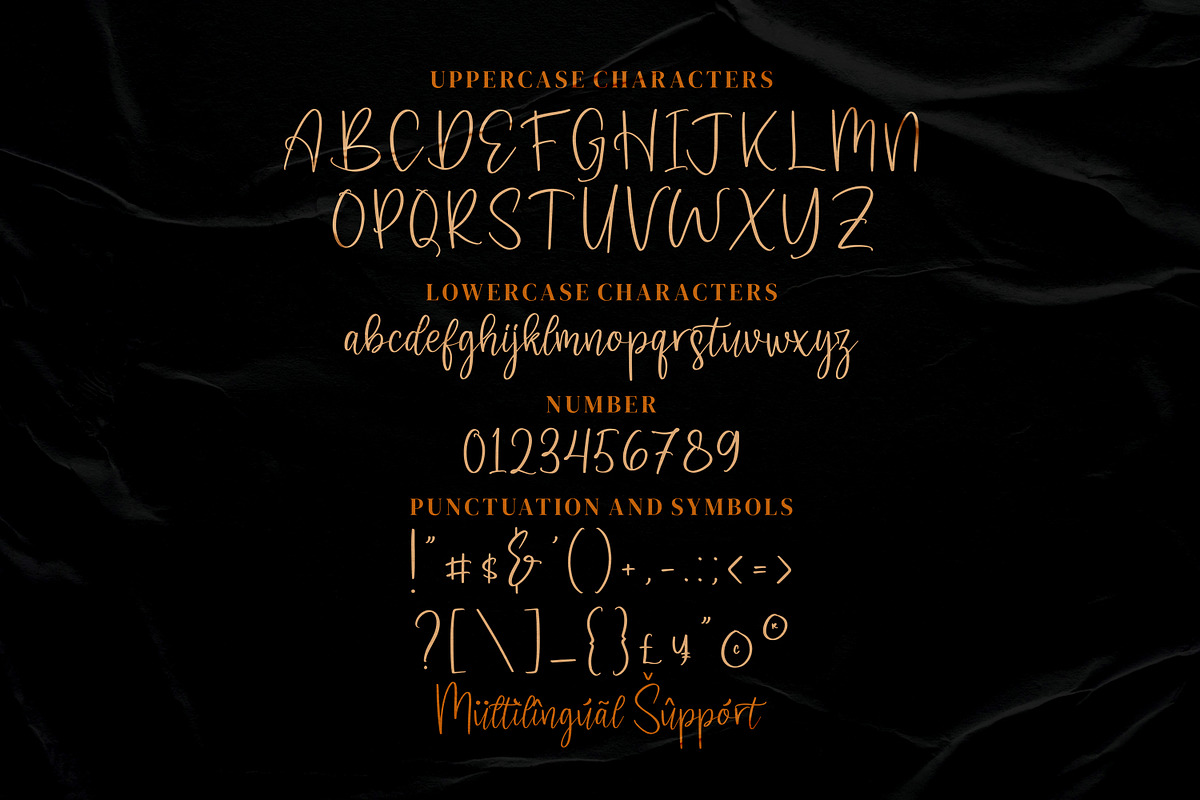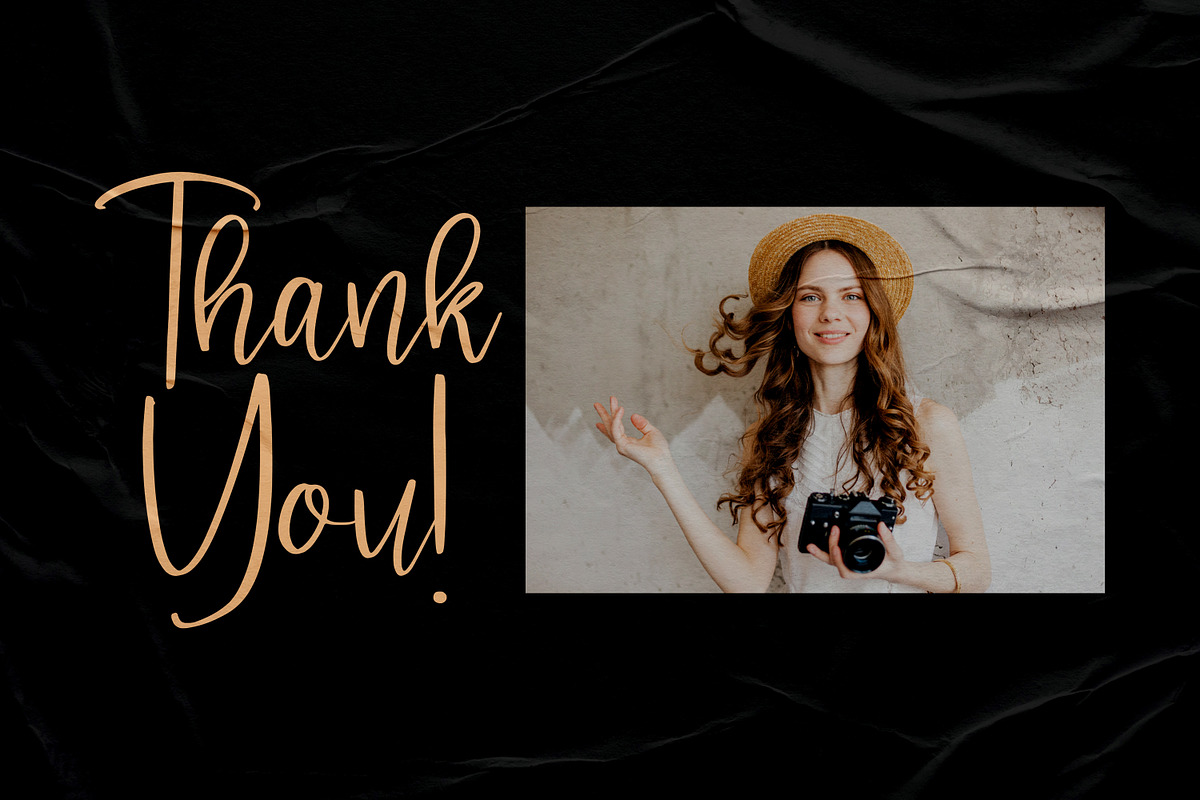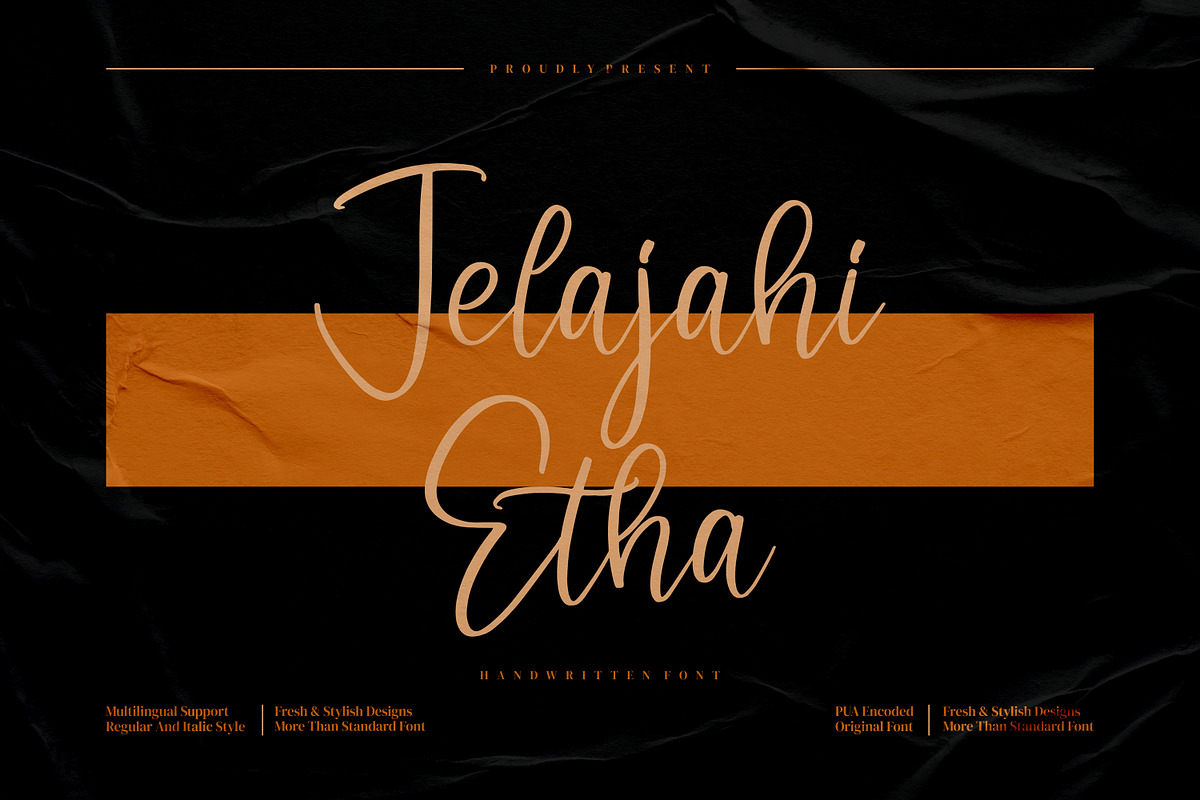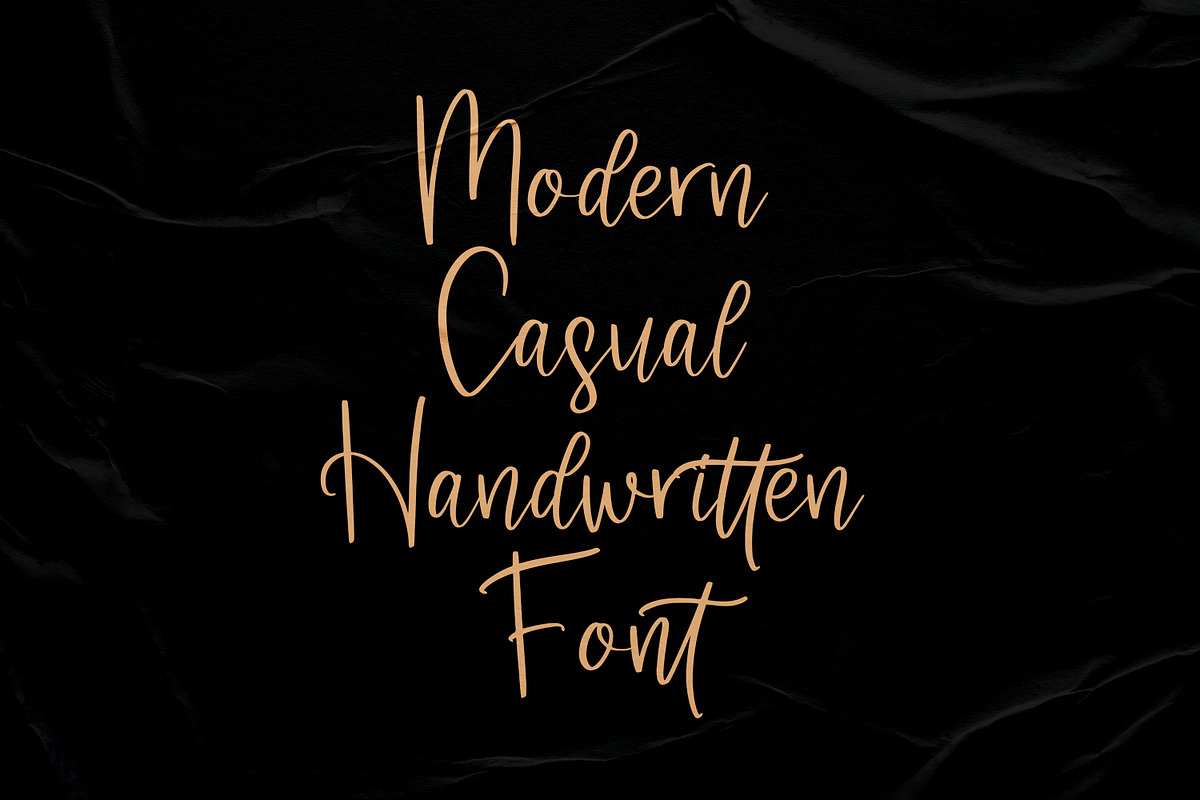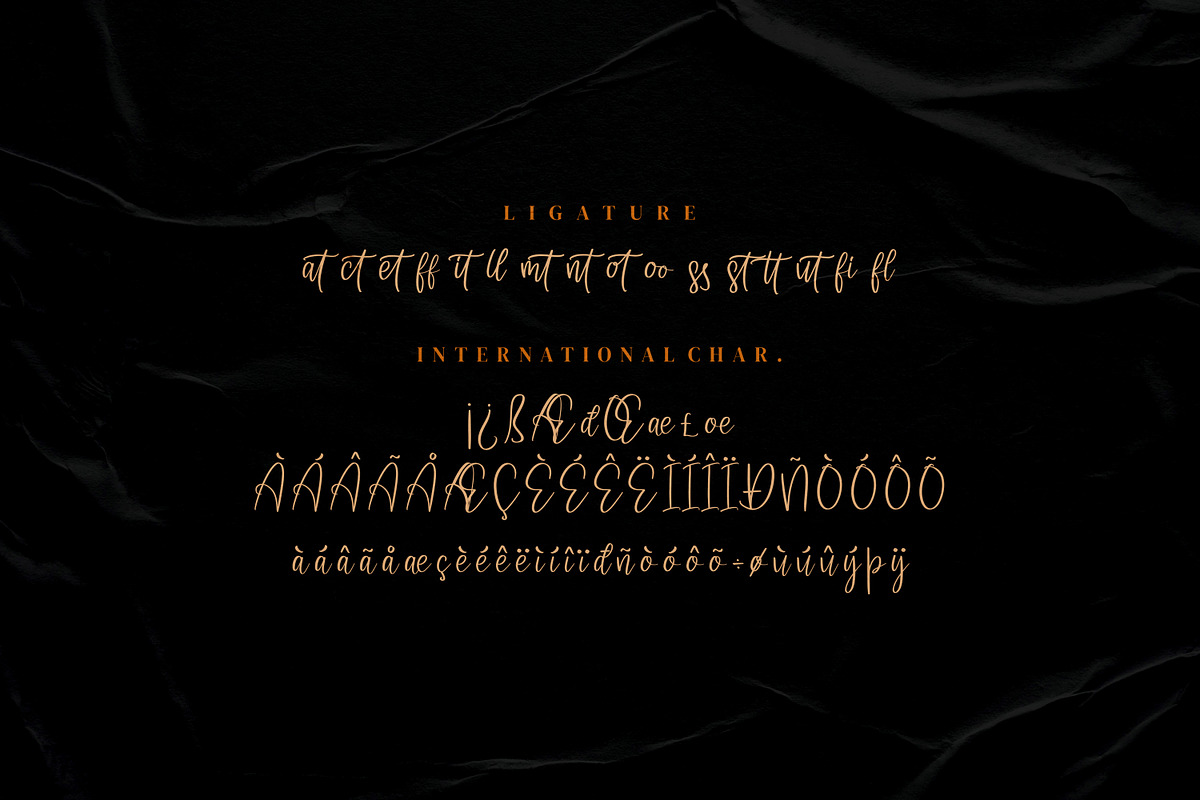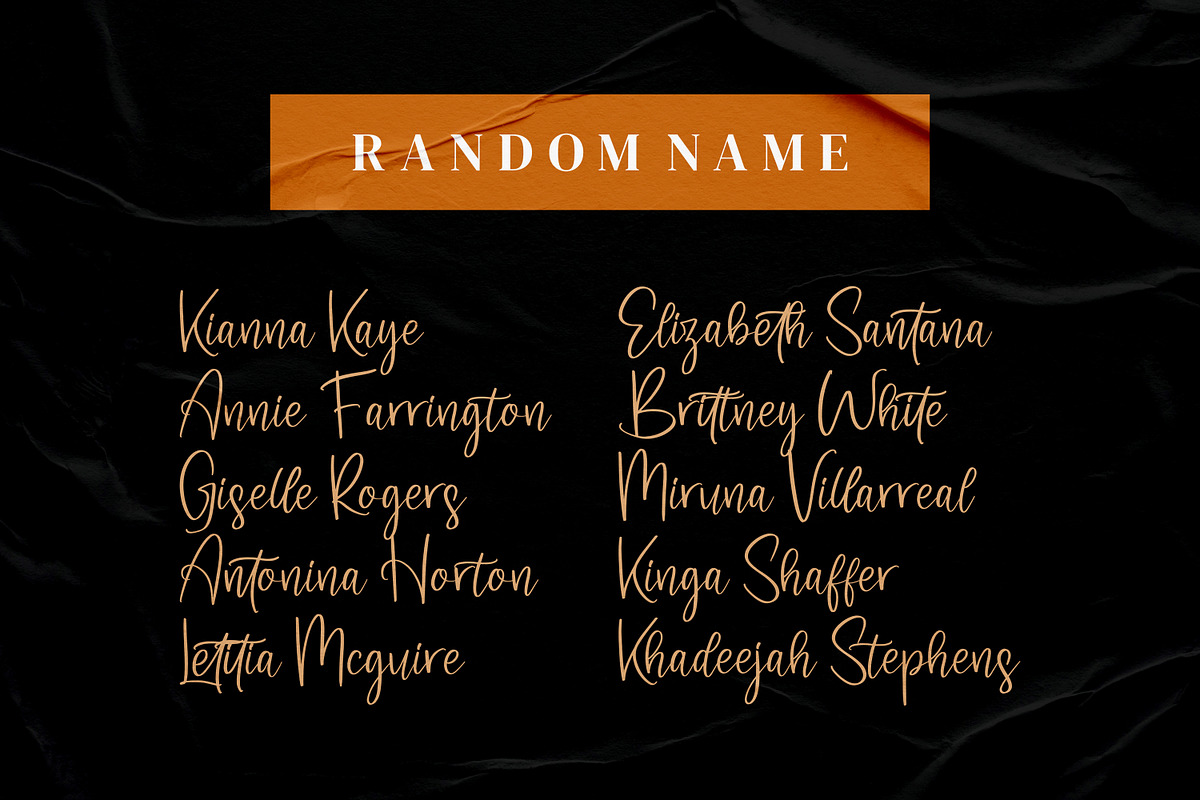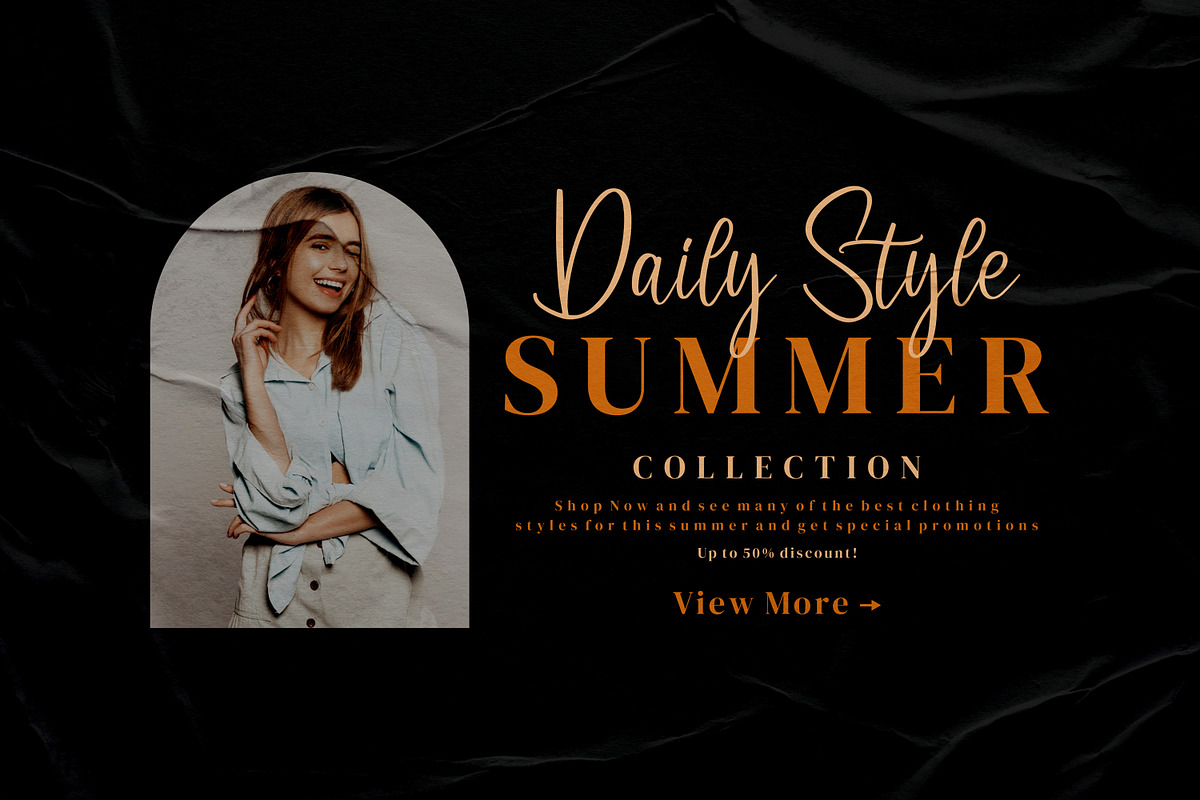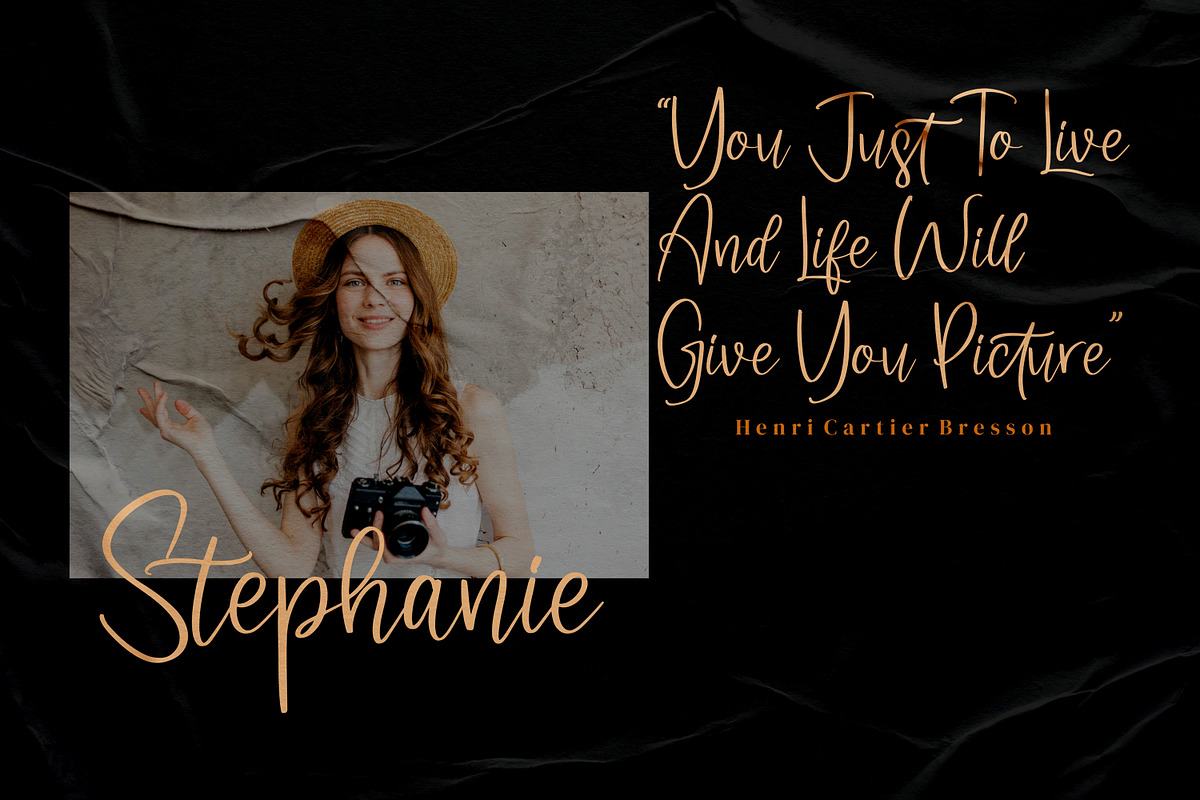
Jelajahi Etha
Jelajahi Etha - Handwritten Font, from Integritype Studio, is a premium Handwritten Font, perfect for any project like: logos, branding projects, homewares designs, product packaging, mugs, quotes, posters, shopping bags, t-shirts, covers books, business cards, invitation cards, greeting cards, labels, photography, watermarks, special events and all your other luxury projects that require a premium taste.
Ligatures, Alternatives & Swashes